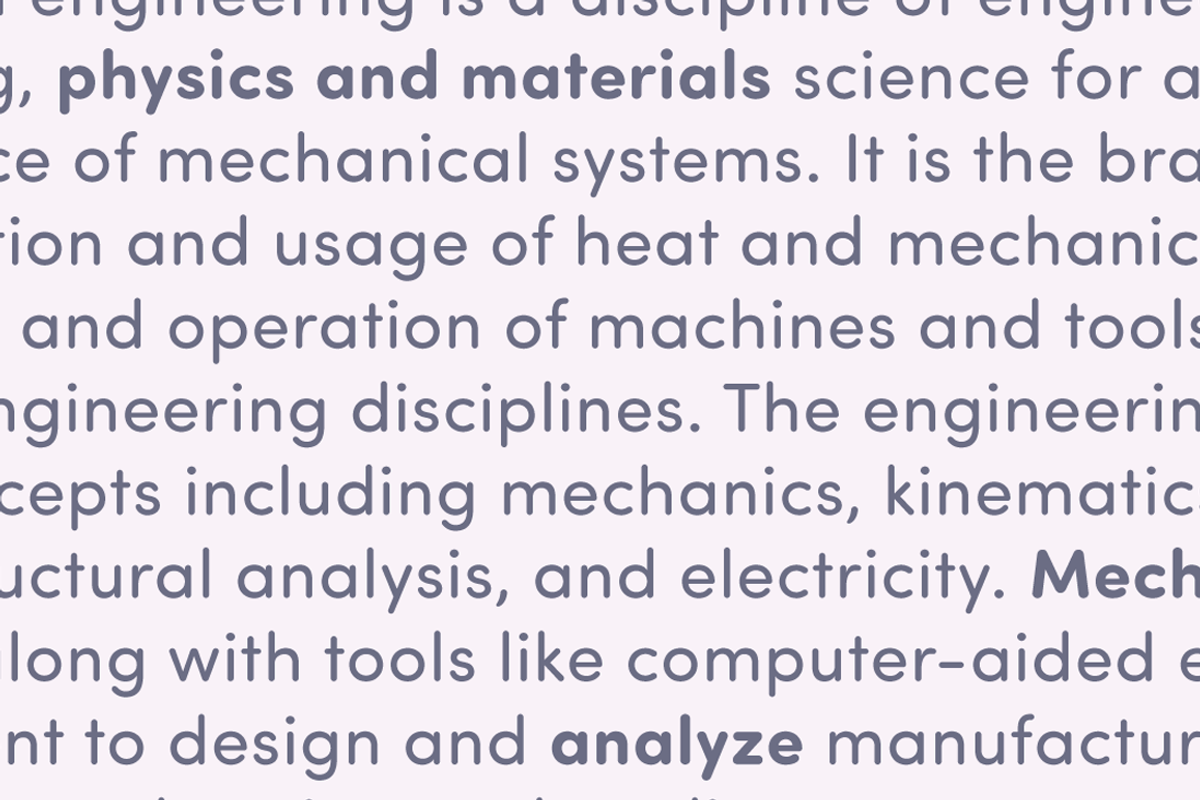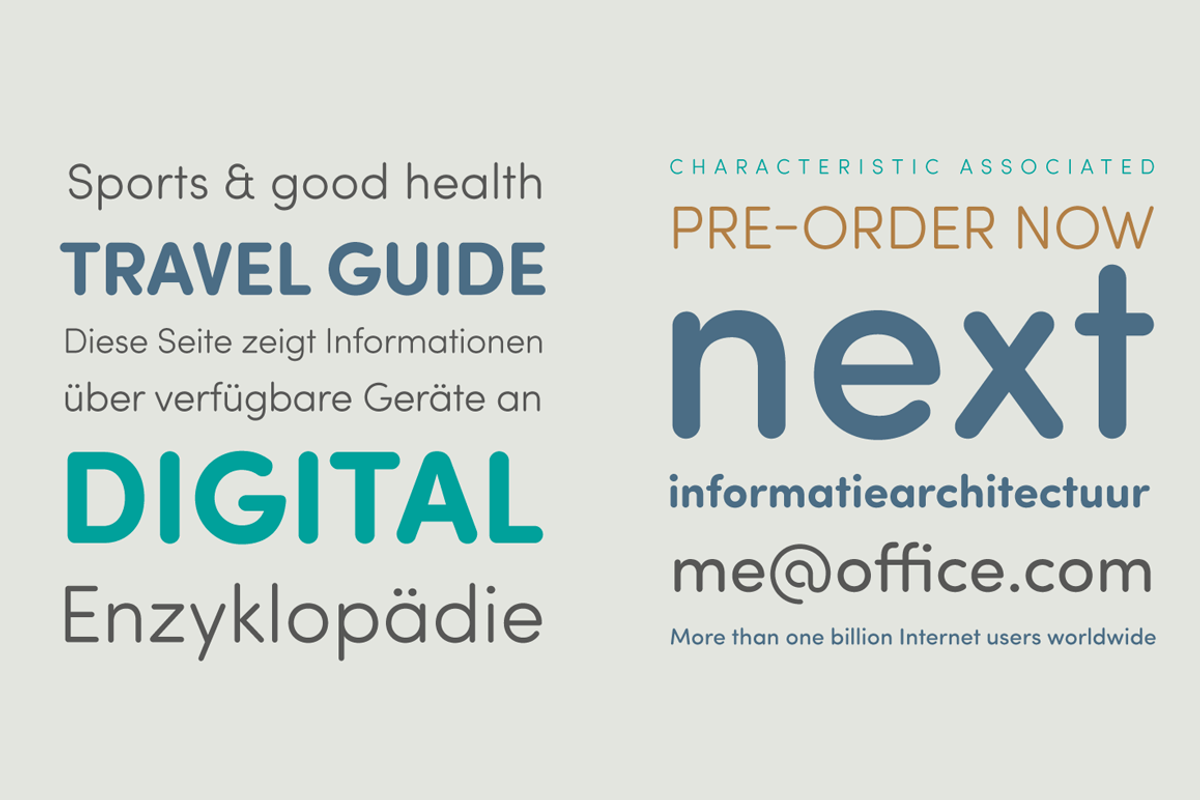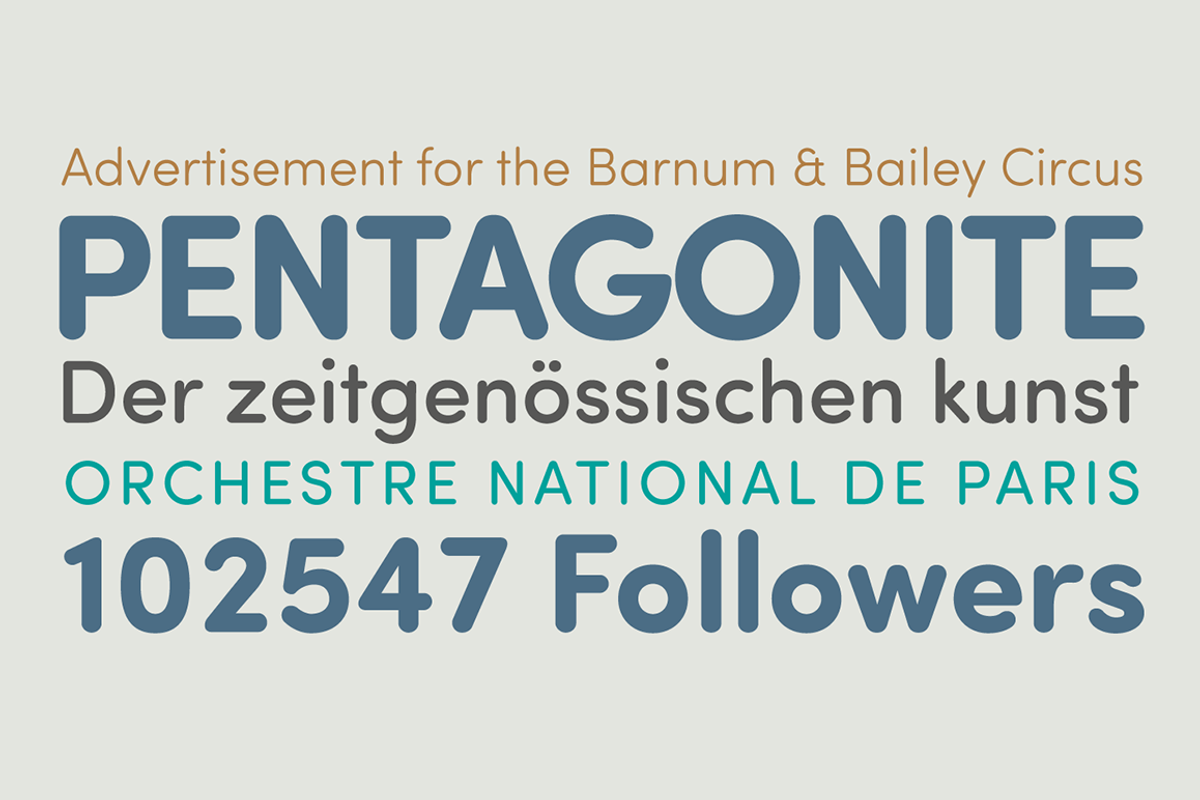
Sofia Soft Font Family (8 fonts)
Sofia Soft Font Family (8 fonts) by Mostardesign Type Foundry is a font selected for branding, posters, packaging, typography.
- and contains 8 fonts from Light to Bold.
- Sofia Soft is the ideal companion to Sofia Pro and improves the versatility of the global font family with optimized spacing and kerning for
- Available in 8 versatile styles, all weights contain the same Opentype features as her sister font with case sensitive forms, stylistic alte
Sofia Soft Font Family (8 fonts) by Mostardesign Type Foundry fits naturally into Branding, posters, packaging, typography.